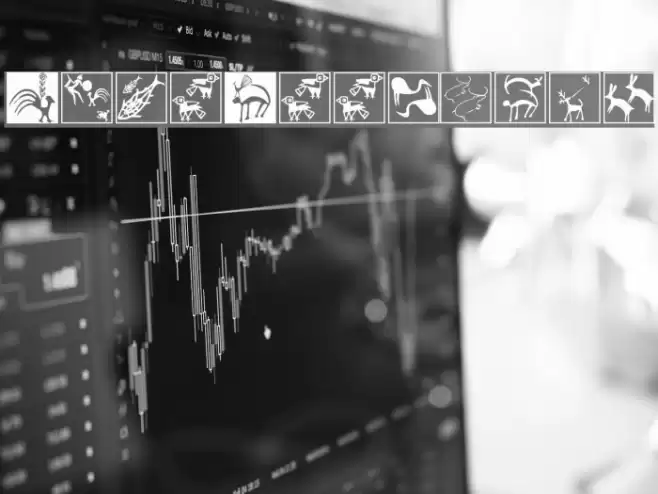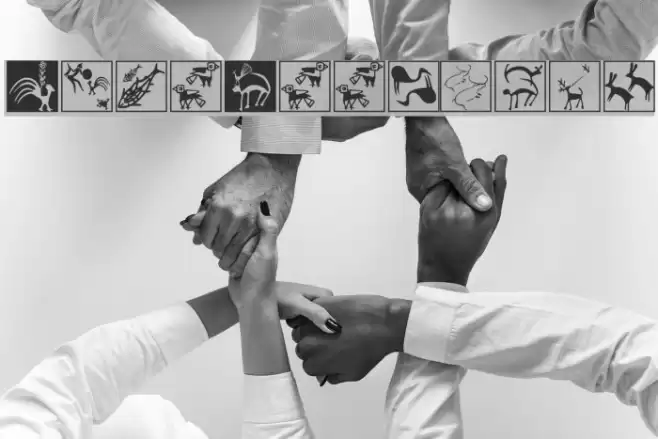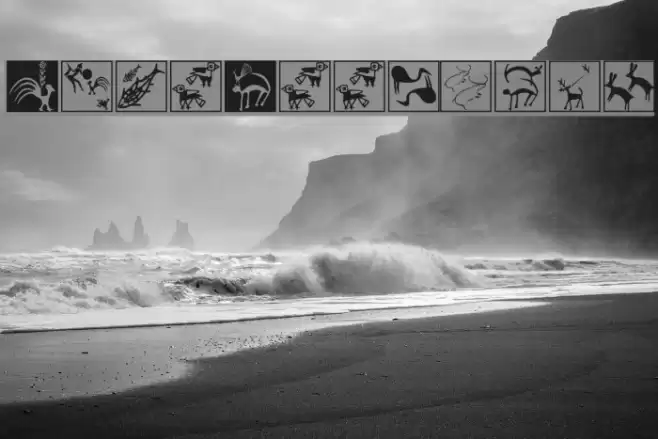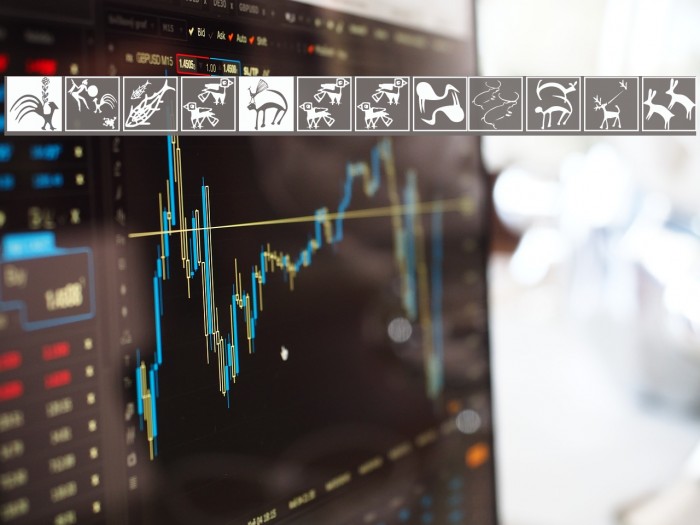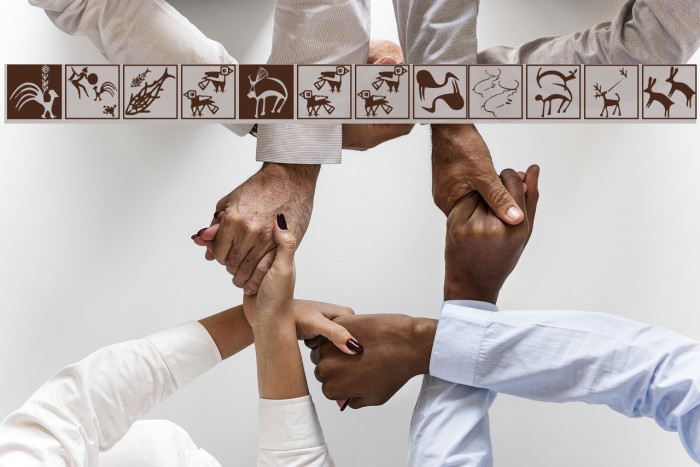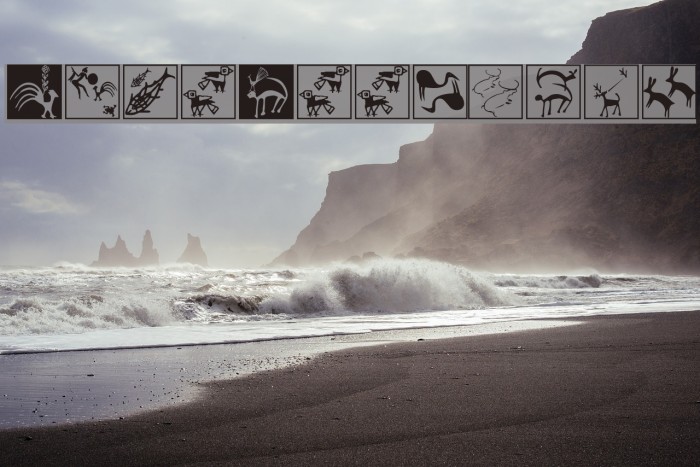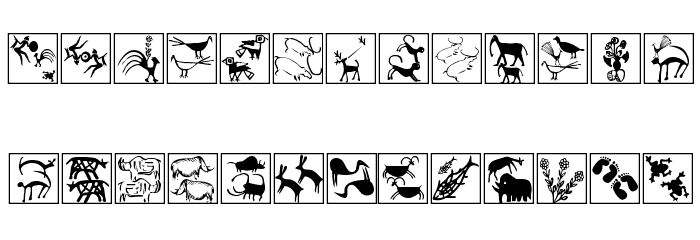
CaveMeetings Font
This is not a traditional font but rather a collection of pictograms inspired by ancient cave paintings. Each character is represented by a unique illustration depicting animals, plants, and abstract shapes. The style is reminiscent of prehistoric art, with bold, organic lines and a high contrast between the black and white elements. The characters are enclosed in square frames, giving a uniform appearance despite the varied designs within each square.
A pictogram set inspired by ancient cave paintings, featuring animals and abstract shapes.
- Proposed Projects: Ideal for educational materials on history or anthropology, decorative art projects, or themed event graphics.
- Overall Style: Vintage
- Use Case: Logos, Decorative art, Educational materials